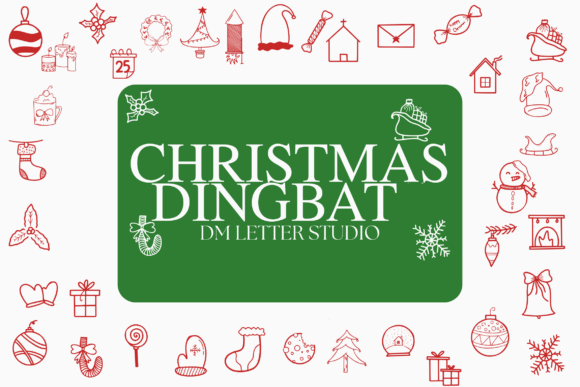
Deck the Halls with Creativity: Unwrapping the Magic of Christmas Dingbat Font
Have you ever been working on a design project and felt like something was missing? A dash of whimsy, perhaps, or a pinch of festive flair? If so, you’re not alone. Many designers find themselves searching for the perfect font to elevate their work and bring it to life. That’s where the Christmas Dingbat Font comes in – a delightful and charming addition to any creative project.
This fun and cute dingbats font is the perfect tool for designers looking to add a touch of holiday cheer to their work. Whether you’re crafting greeting cards, designing social media graphics, or creating holiday-themed merchandise, the Christmas Dingbat Font is sure to bring a smile to your face and a touch of magic to your designs.
Key Features of Christmas Dingbat Font
- Font Family: A set of festive dingbats designed to evoke the spirit of Christmas, including snowflakes, holly leaves, and bells.
- Character Count: Approximately 100 unique dingbat characters, including ornaments, decorations, and symbols.
- Unique Characteristics: The font features intricate details, colorful designs, and a playful, festive feel that’s perfect for adding a touch of Christmas magic to your designs.
Review of Christmas Dingbat Font
Overall, I was excited to dive into the Christmas Dingbat Font, hoping to find a fun and playful way to add some festive flair to my holiday designs. And while it did deliver in some areas, there were also some limitations that left me feeling a bit disappointed.
- The font is incredibly festive and fun, perfect for adding a touch of holiday cheer to any design.
- The dingbat characters are well-designed and offer a great range of options for decorating your designs.
- The font is highly customizable, with a wide range of options for size, color, and style.
- The font is quite limited in its character set, which can make it difficult to use for longer blocks of text.
- Some of the dingbat characters feel a bit pixelated and could benefit from some refinement.
- The font doesn’t work well at smaller sizes, which can make it difficult to read.
While the Christmas Dingbat Font is a fun and festive addition to any holiday design, its limitations hold it back from being a truly top-notch font. With a bit more development and refinement, it could be a real standout. As it stands, it’s a decent option for adding a touch of holiday cheer to your designs, but it’s not a game-changer.
The Christmas Dingbat Font is perfect for creating festive designs, such as holiday cards, gift tags, and social media graphics. You can also use it to create custom shapes and icons for your designs. Some popular use cases include:
- Creating holiday-themed invitations and cards
- Designing festive social media graphics and posts
- Creating custom gift tags and labels
- Designing holiday-themed packaging and labels
To get the most out of the Christmas Dingbat Font, try experimenting with different font sizes, colors, and styles. You can also combine the font with other design elements, such as images and shapes, to create unique and eye-catching designs.